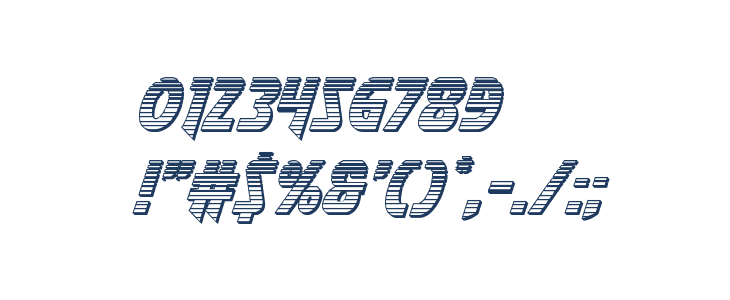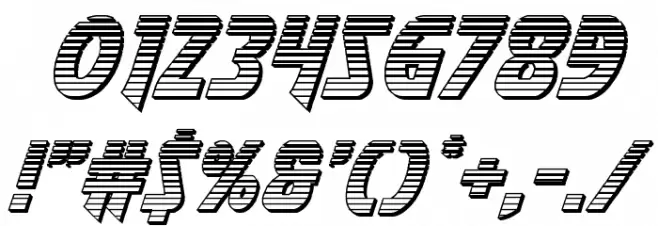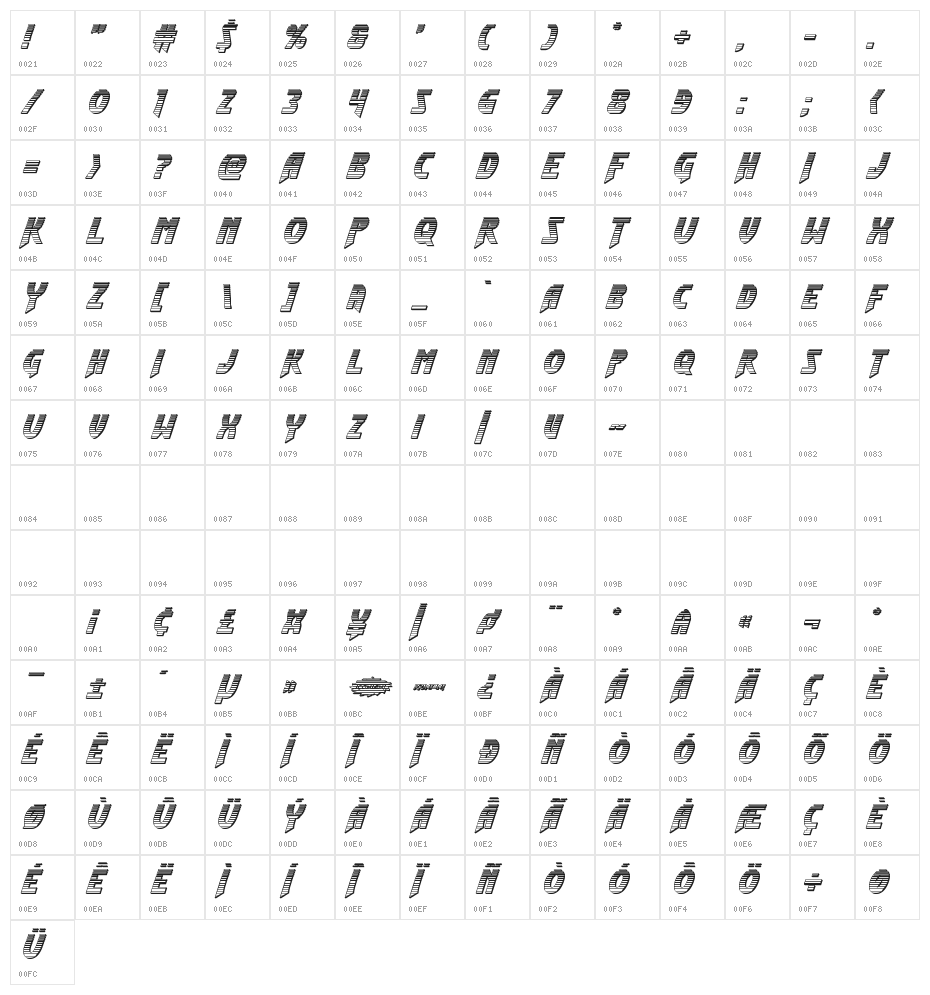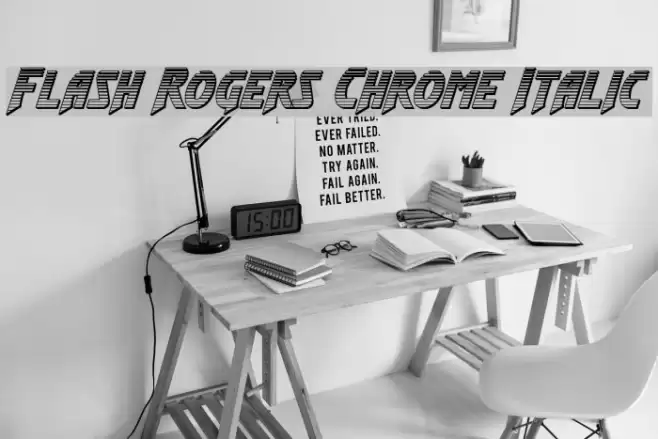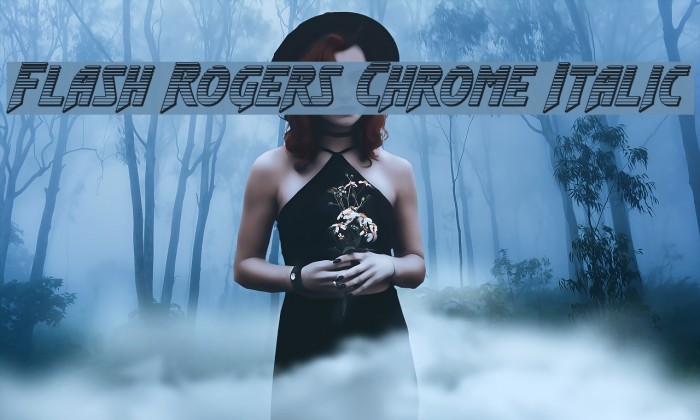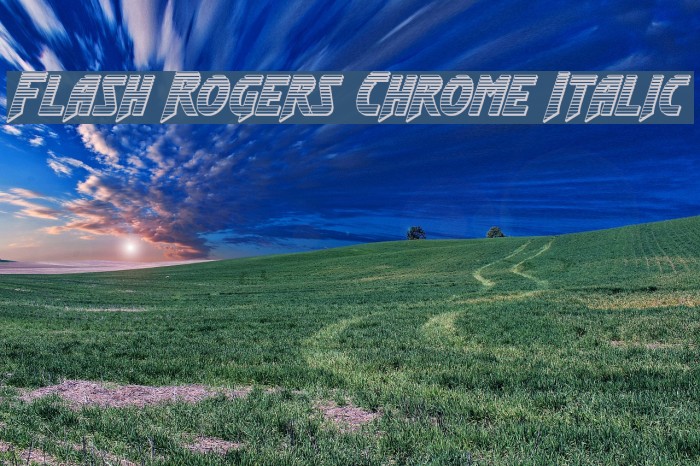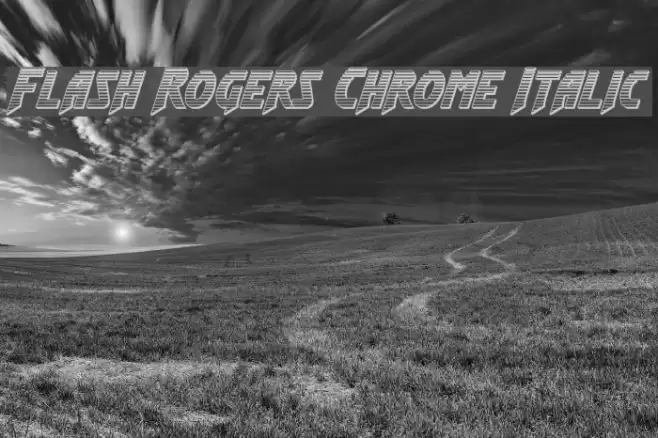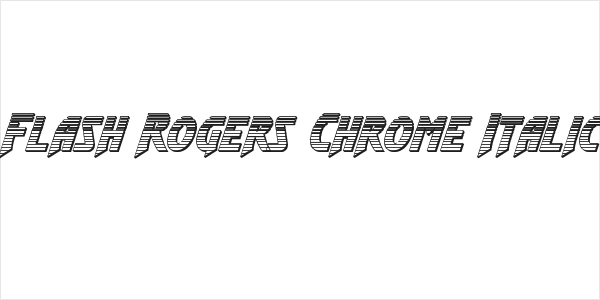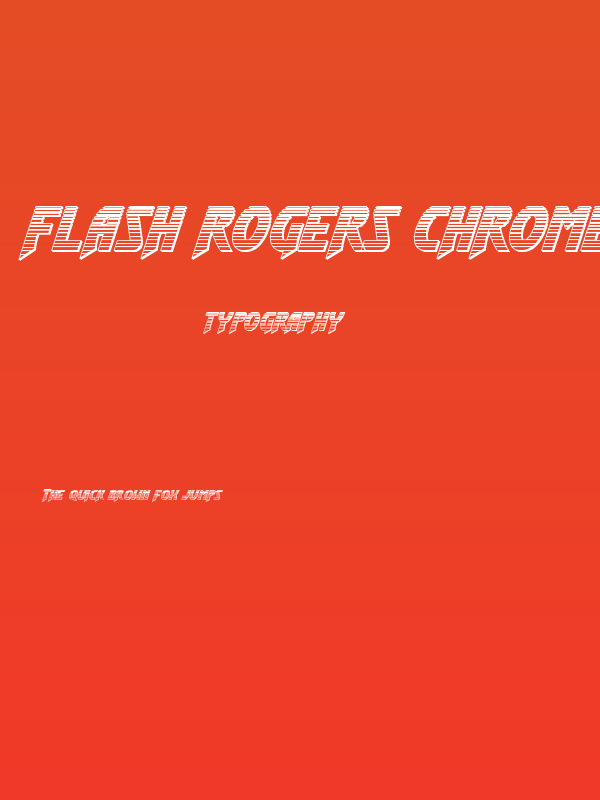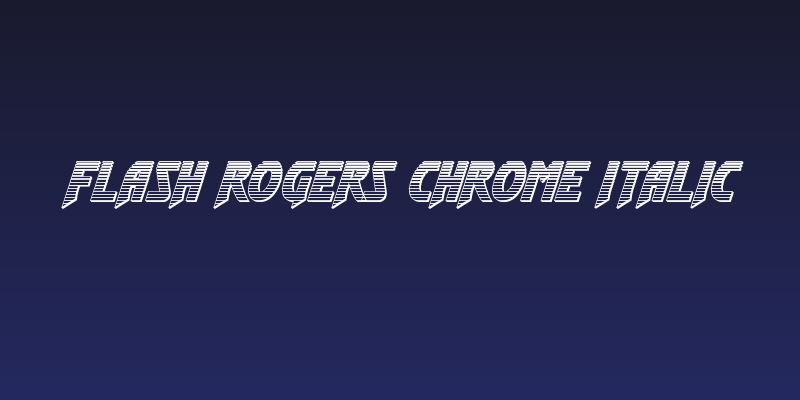
Flash Rogers Chrome Italic Font
Flash Rogers Chrome Italic Description
This font features a bold, dynamic design with a distinct 3D effect created by parallel lines running through each character. The italicized slant adds a sense of motion and energy, making it ideal for attention-grabbing headlines or logos. Each letter and number is crafted with precision, ensuring readability despite the decorative elements. The font's unique style is reminiscent of retro-futuristic aesthetics, combining a sense of nostalgia with modern flair. The special characters maintain the same design consistency, providing a cohesive look across all text elements.
| Overall Style | Retro-Futuristic |
| Proposed Projects | Ideal for use in branding, posters, video game titles, and any project requiring a bold, dynamic look. |